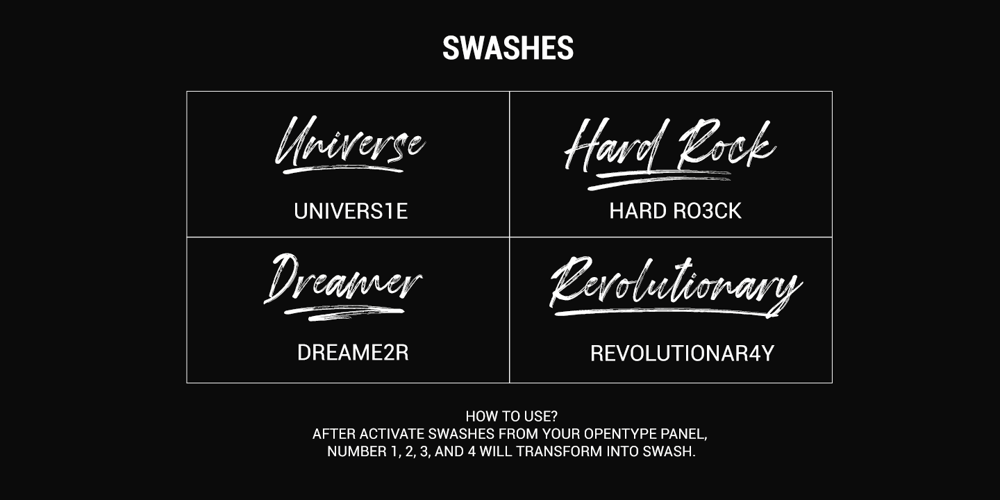
Londoner Font Family was designed by Anton Cahyono and published by Motokiwo. Londoner contains 2 styles and family package options. Londoner is a handwritten font with a dry brush texture. It was created directly with my marker vector brush, the whole process is digitalized. Londoner is suitable for logo, product branding, or for text overlay to any background image. Londoner comes with ligatures, swashes, multilingual support, and PUA Encoded.